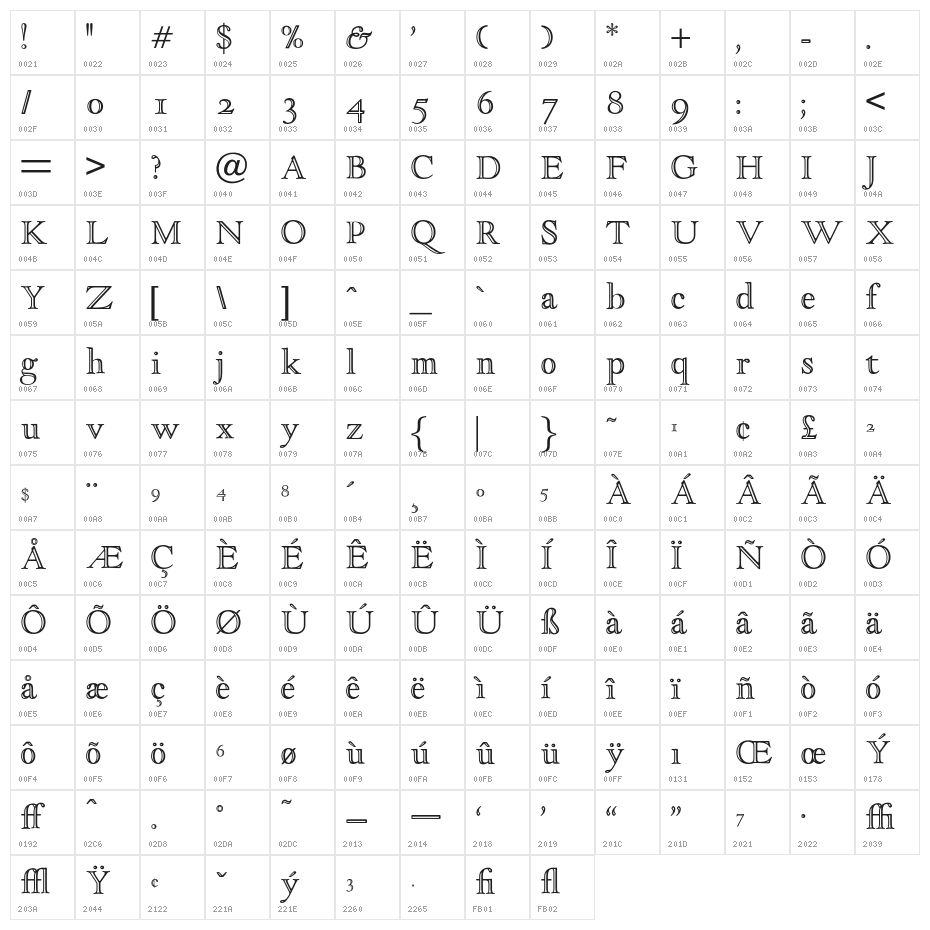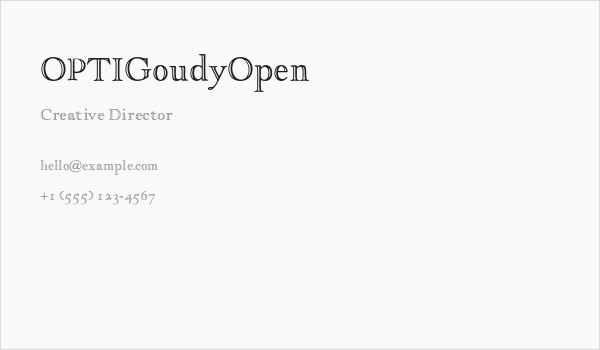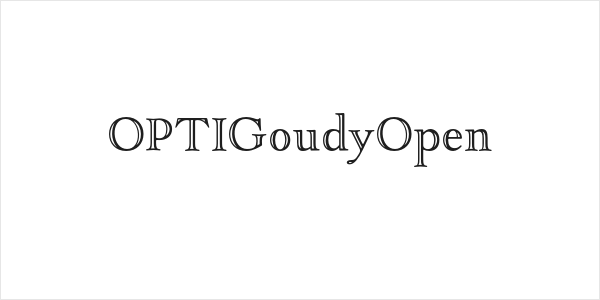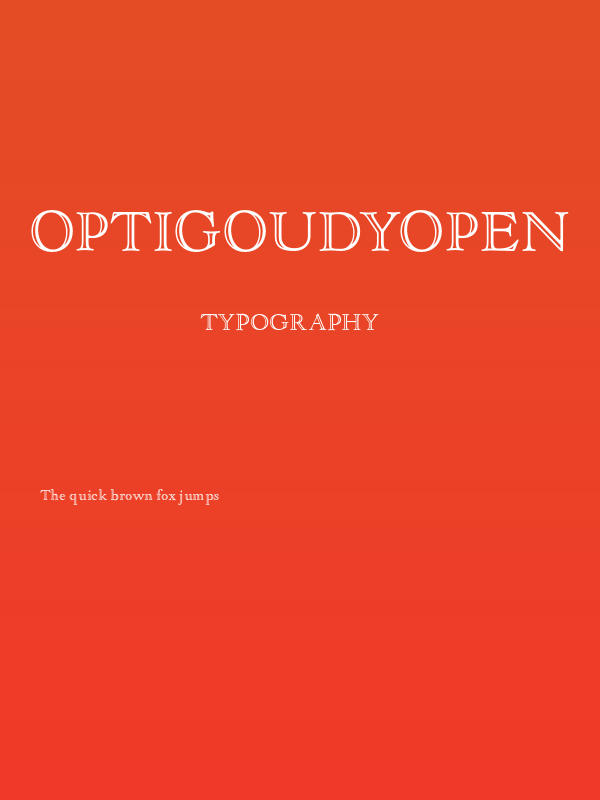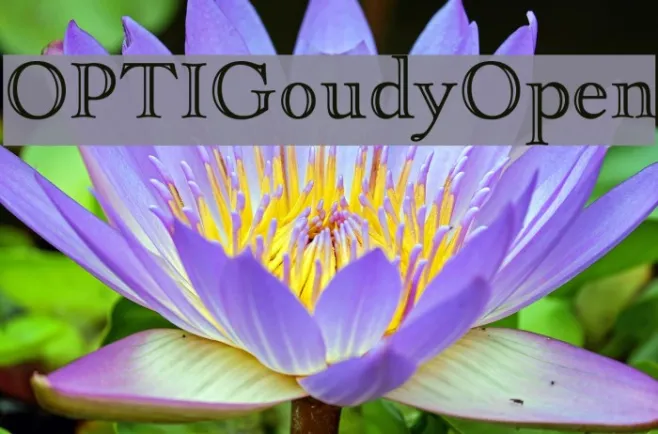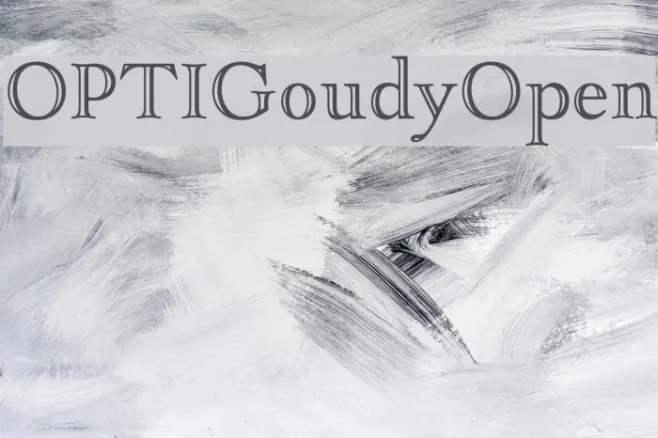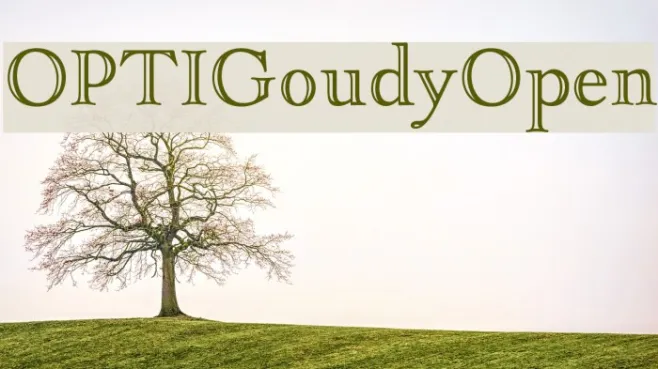
OPTIGoudyOpen Font
OPTIGoudyOpen Description
This font exudes a classic elegance with its refined serif design, characterized by delicate curves and a sophisticated structure. The uppercase letters are stately and well-proportioned, while the lowercase letters maintain a harmonious balance with subtle flourishes. The numerals are distinct and clear, ensuring readability. Special characters are crafted with attention to detail, adding to the font's overall charm. The font's style is reminiscent of traditional typography, making it suitable for projects that require a touch of timeless sophistication.
| Proposed Projects | Ideal for book covers, formal invitations, branding, and editorial design. |